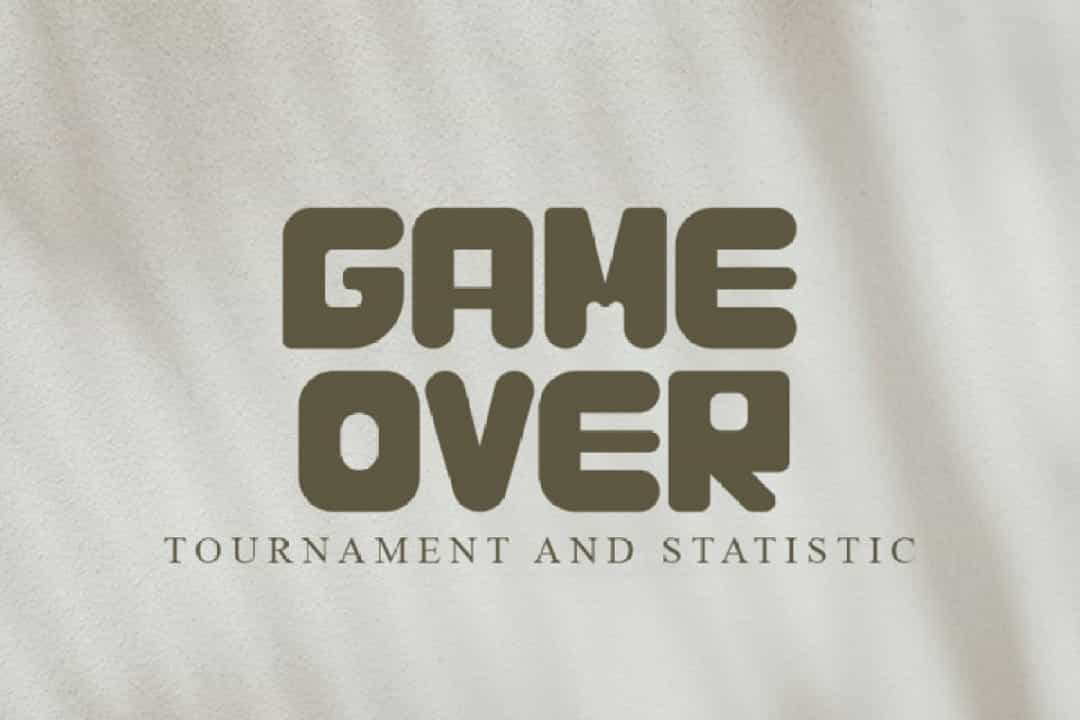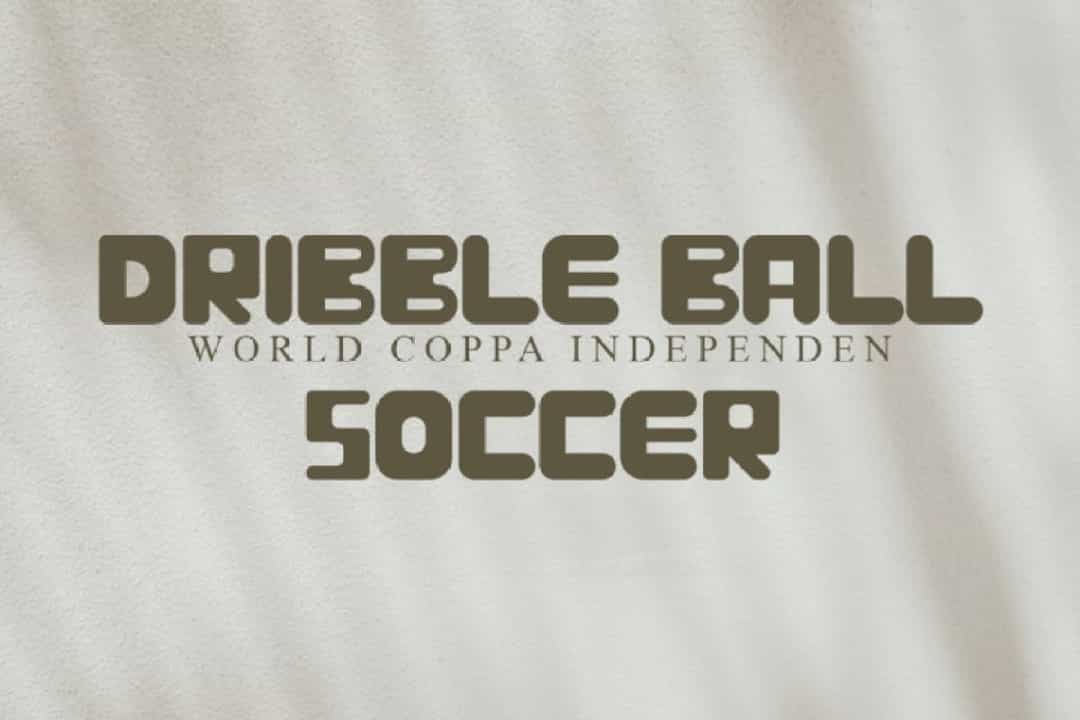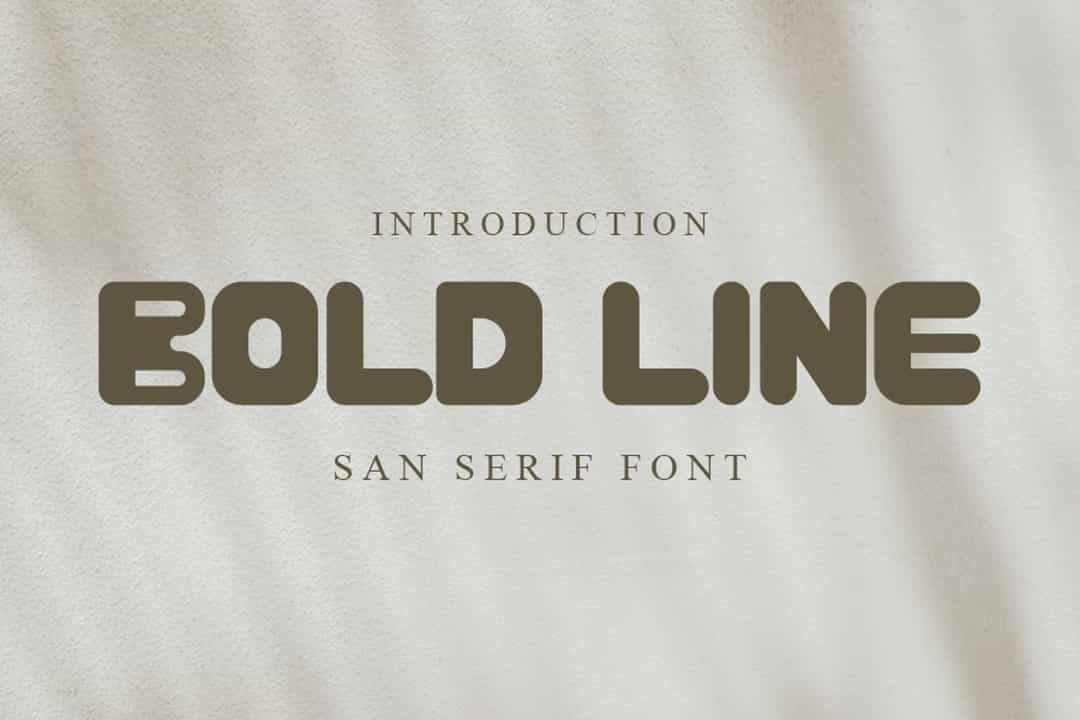
Bold Line is a display font that is quite attention grabbing. This font is quite straightforward, but at the same time, it has some peculiarities that make it ideal for branding tasks like logos and profiles in social networks, handmade artworks, and creative branding products.